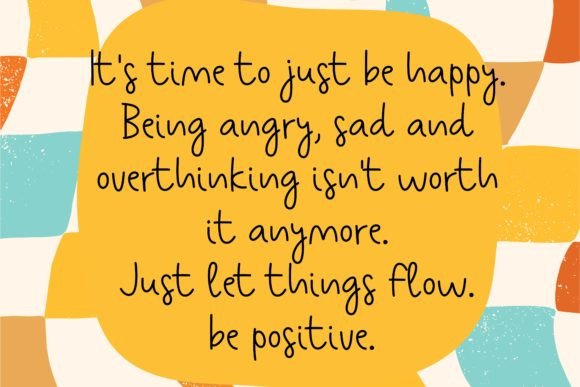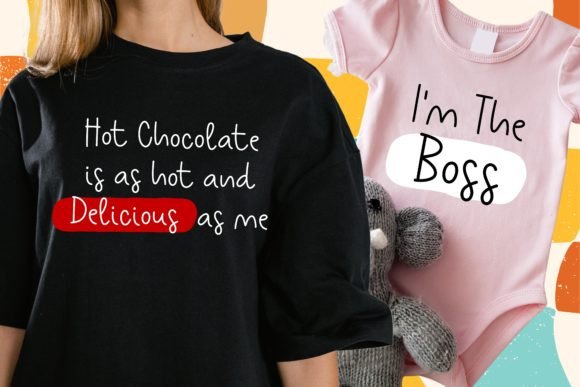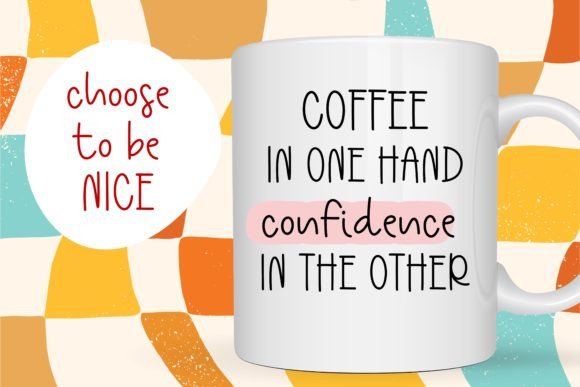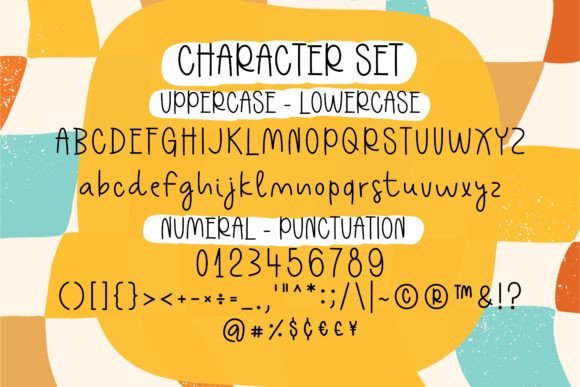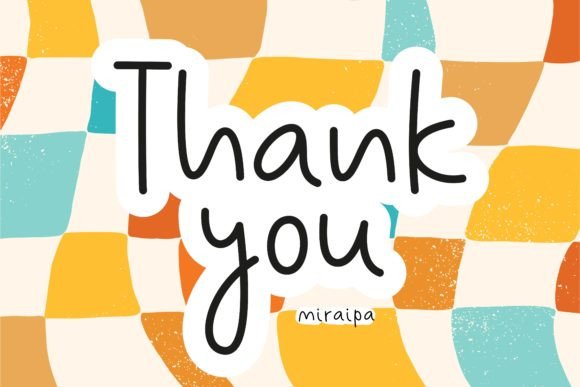
Introduction to Little Groovy Font
Little Groovy is designed in a cute and playful sans serif font style.
It’s charming, whimsical, and a bit quirky It would be awesome to your fun projects or diary planner.